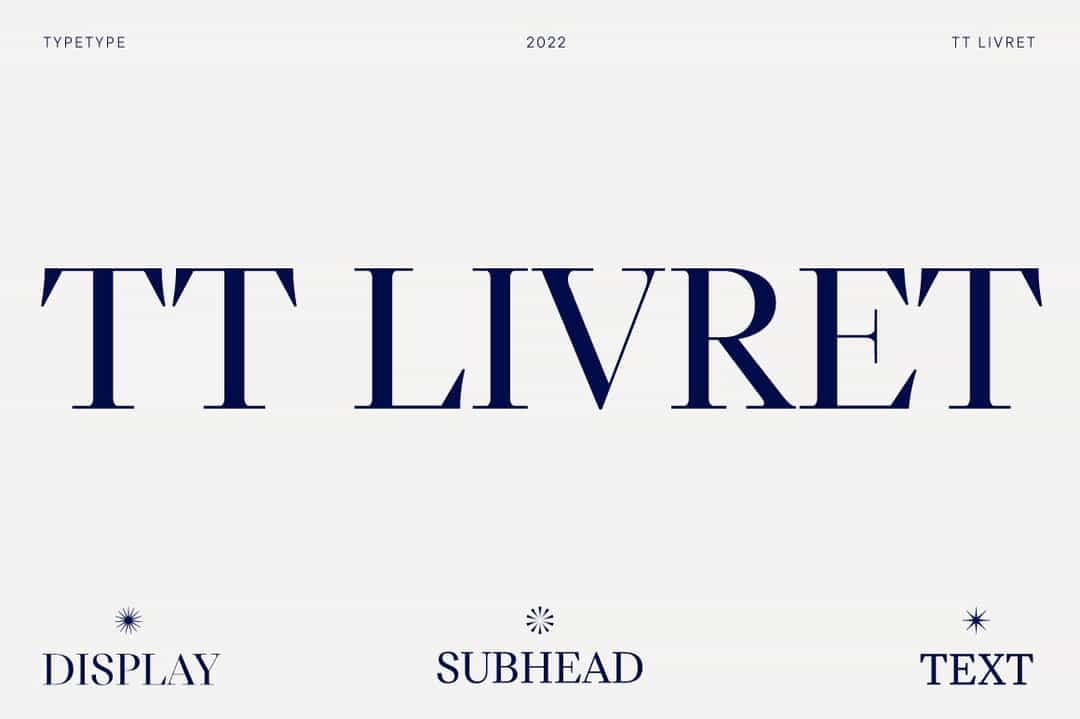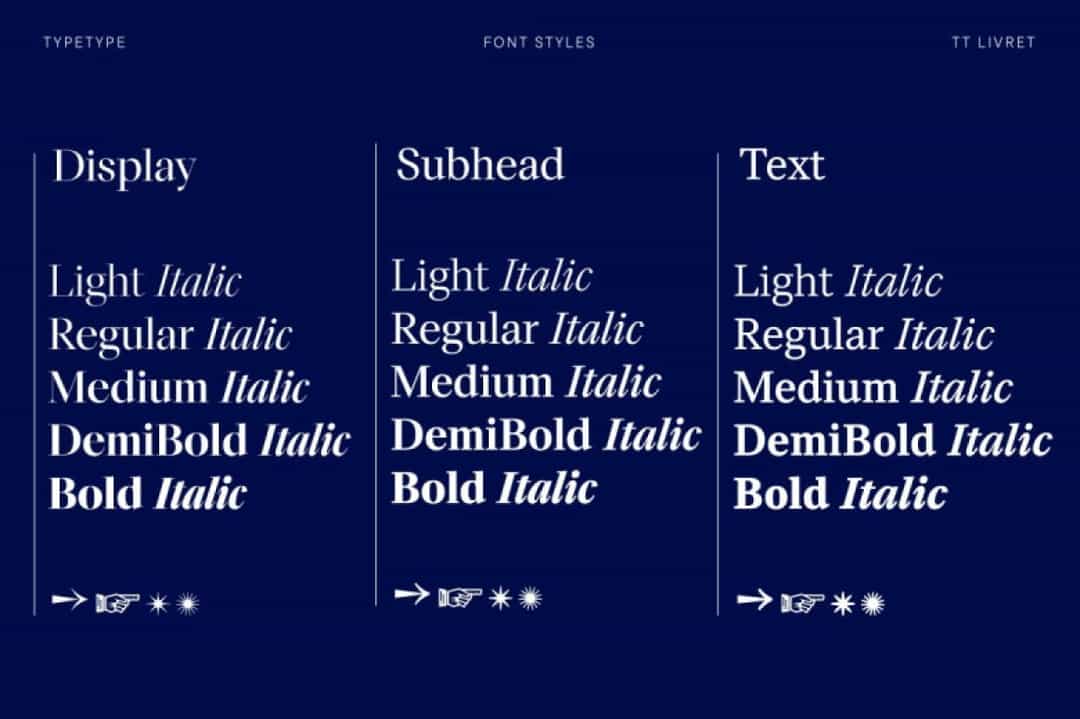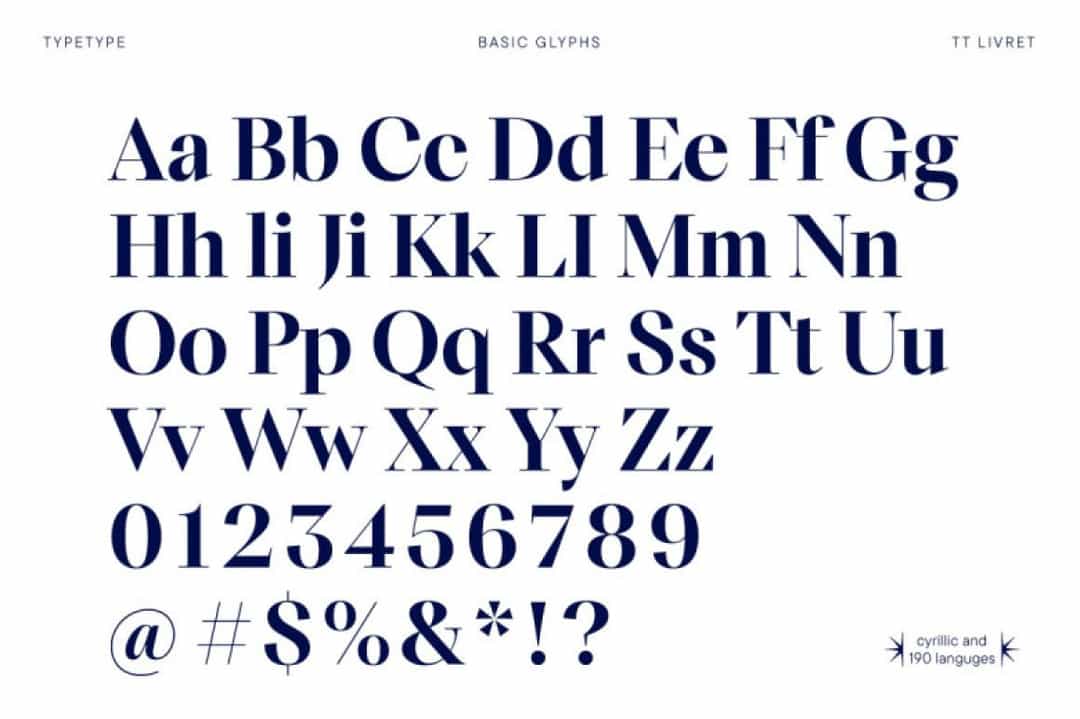
TT Livret is an attractive modern serif typeface featuring both tranquil text and eye-catching display subfamilies. Perfect for publications and books as posters or magazine covers; its use extends well beyond print since TT Livret looks beautiful any time text is utilized. Text subfamilies typically feature uniwidth proportions and an inviting tone, featuring round oval characters with free spacing, open apertures and ample apertures that remain open.